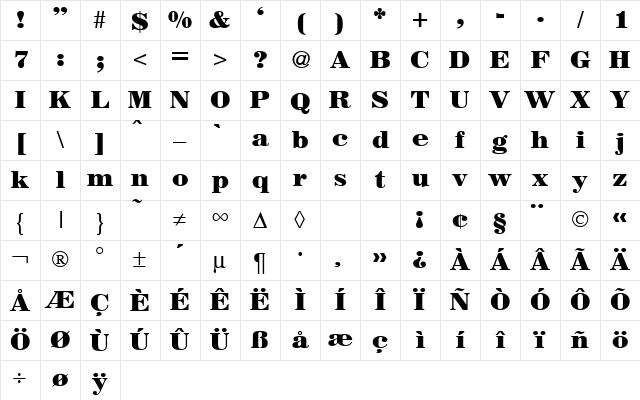
MagazineHeavy Regular
Design Context for MagazineHeavy
MagazineHeavy is a composed and adaptable typeface that performs quietly and consistently across a wide range of design contexts.
Pro Tip: Use MagazineHeavy in both headline and body roles to test its range before committing to a single application.